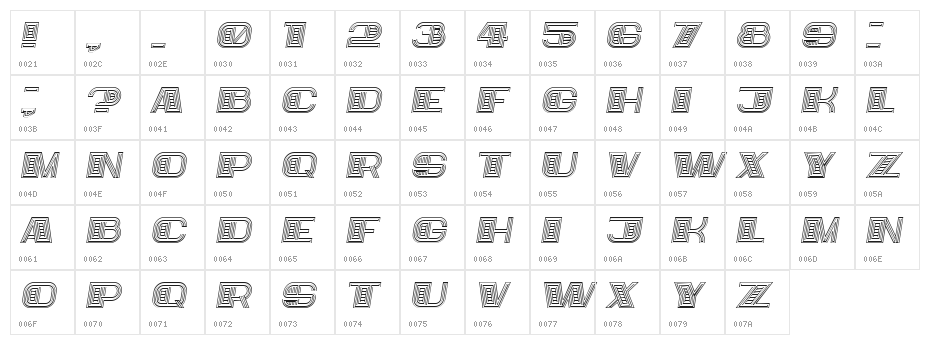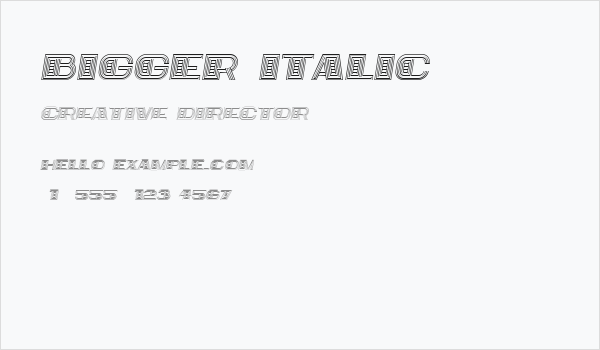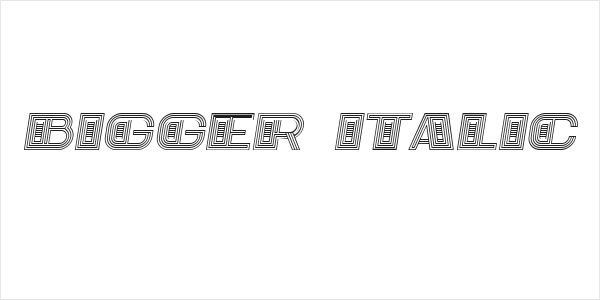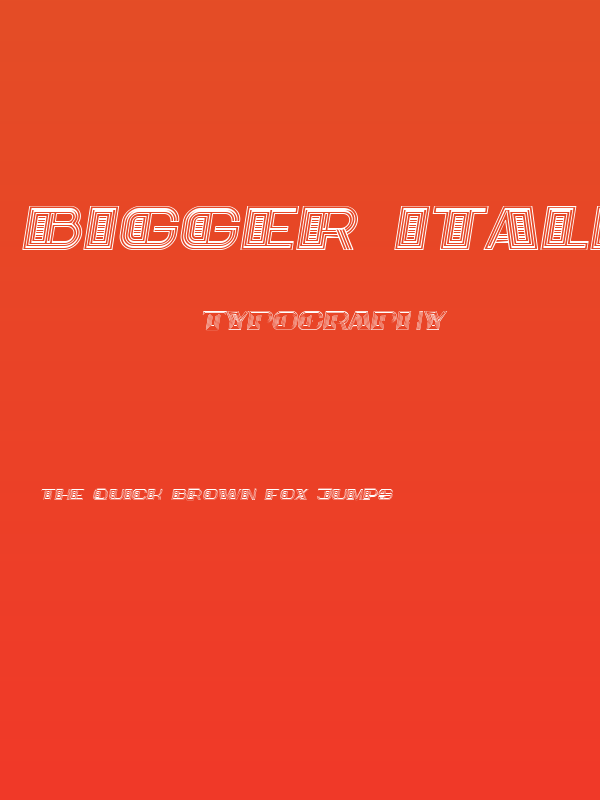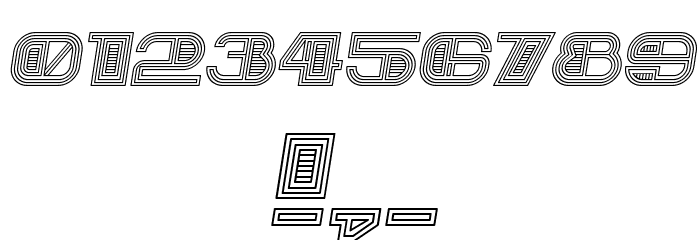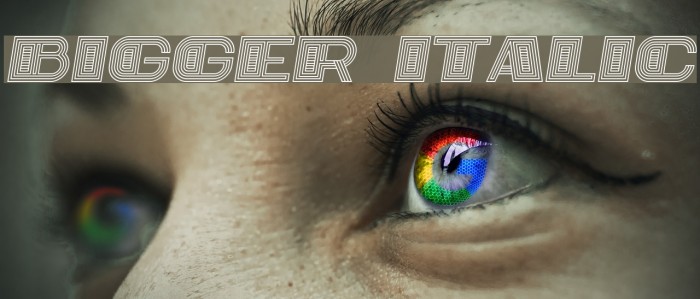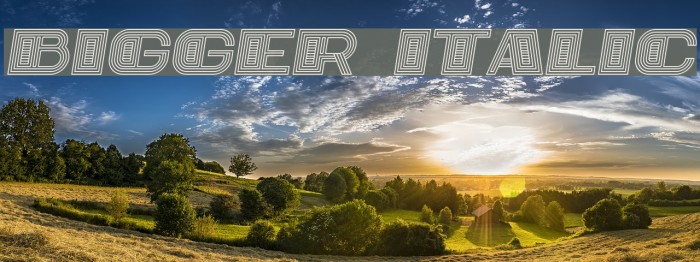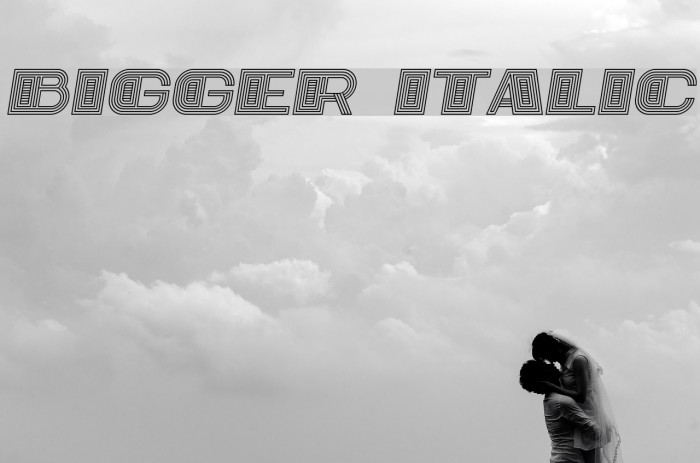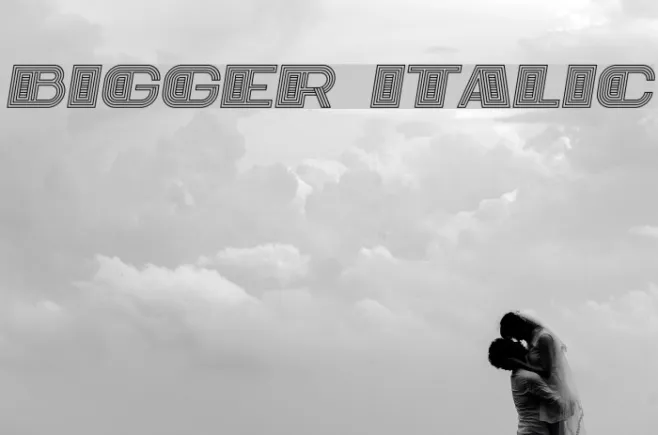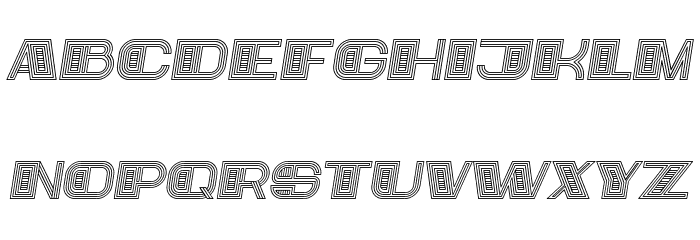
Bigger Italic Font
Bigger Italic Description
This font features a bold, geometric design with a distinct italic slant, creating a dynamic and modern appearance. Each character is constructed with multiple parallel lines, giving it a layered and dimensional look. The uppercase and lowercase letters maintain a consistent style, with sharp angles and clean lines that enhance readability while adding a unique visual flair. The numerals and special characters follow the same design principles, ensuring uniformity across all elements. This font's structured yet playful aesthetic makes it suitable for a variety of creative applications.
| Proposed Projects | Ideal for branding, posters, and digital media where a modern and dynamic look is desired. |